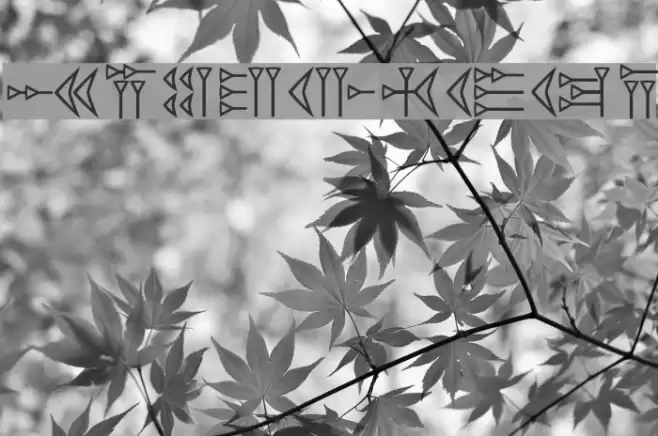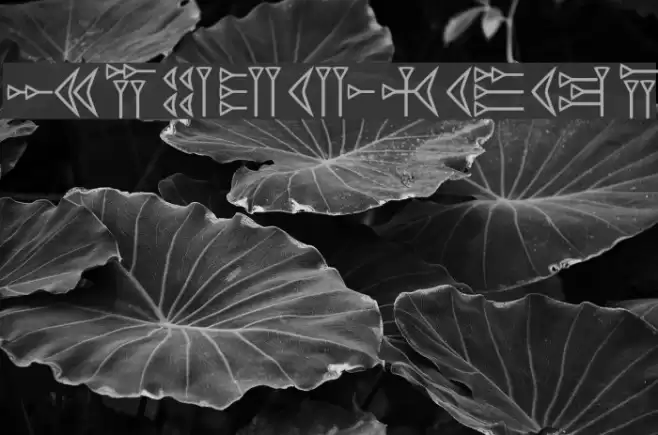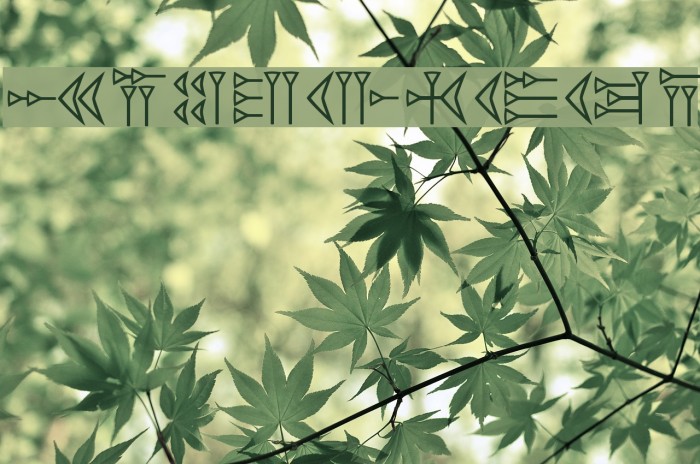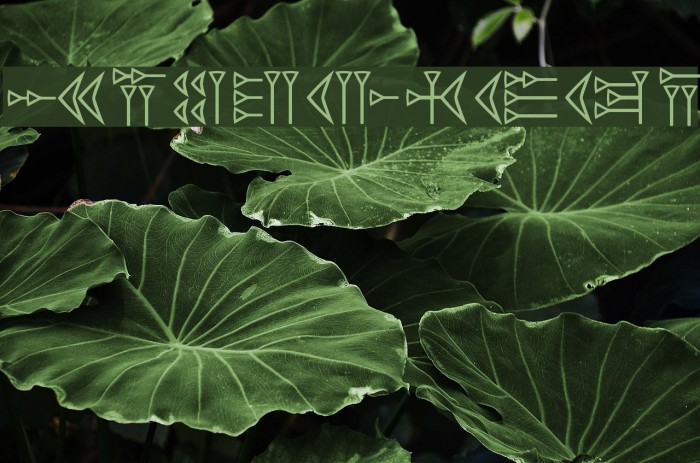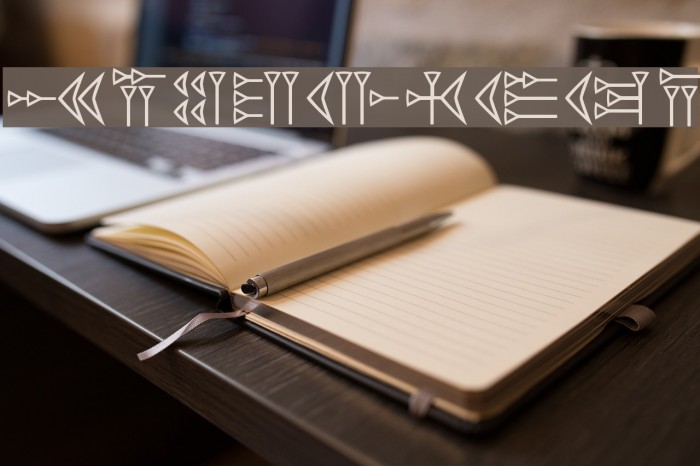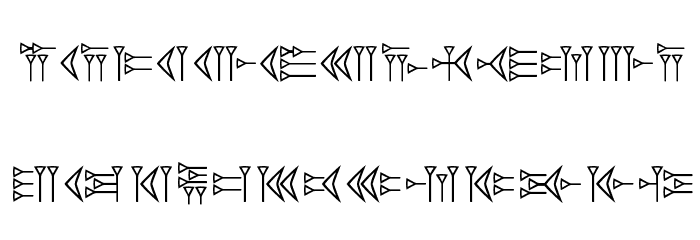
EasyCuneiform Font
EasyCuneiform Description
This font is a modern interpretation of ancient cuneiform script, featuring bold, angular strokes that mimic the wedge-shaped impressions of the original writing system. Each character is crafted with precision, maintaining the historical essence while offering a contemporary twist. The font is highly decorative, with intricate details that make it stand out. Its unique style is reminiscent of ancient Mesopotamian inscriptions, providing a sense of mystery and antiquity. The characters are evenly spaced, ensuring readability while preserving the aesthetic complexity. This font is perfect for projects that require a touch of historical elegance and cultural depth.
A modern, decorative font inspired by ancient cuneiform script with bold, angular strokes from Uncategorized fonts.
- Proposed Projects: Ideal for historical documentaries, educational materials, themed events, or artistic projects that require an ancient aesthetic.
- Use Case: Logos, Artistic projects, Educational materials